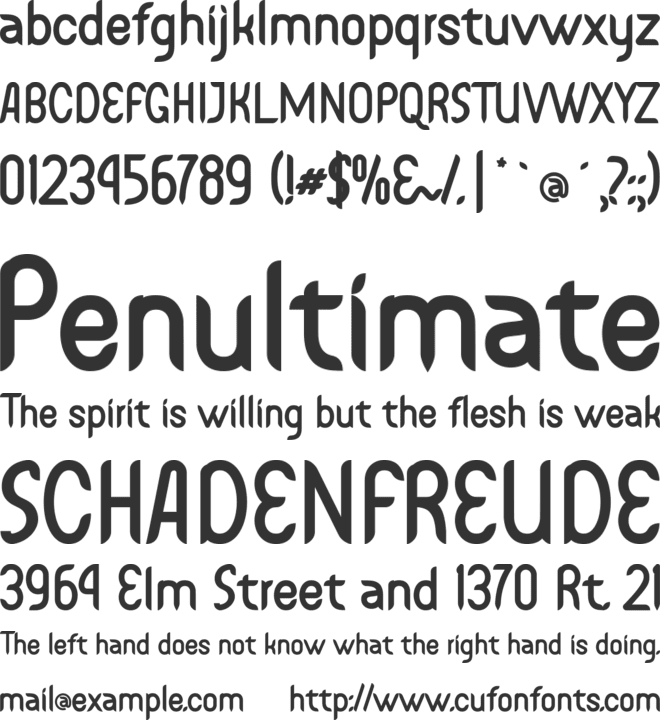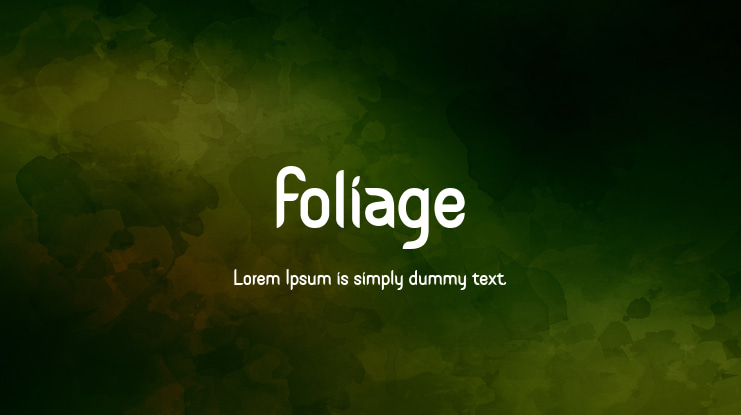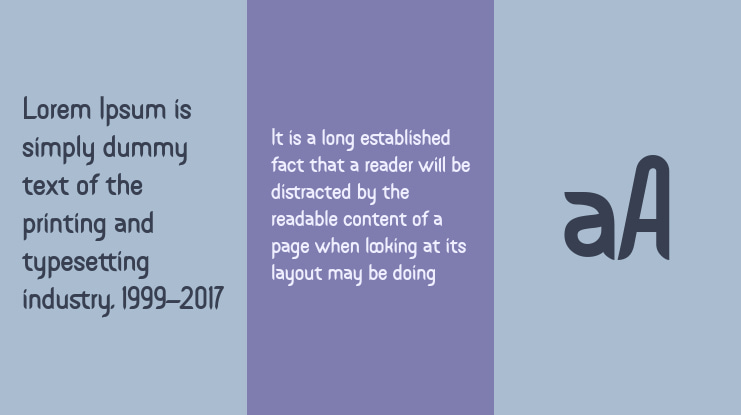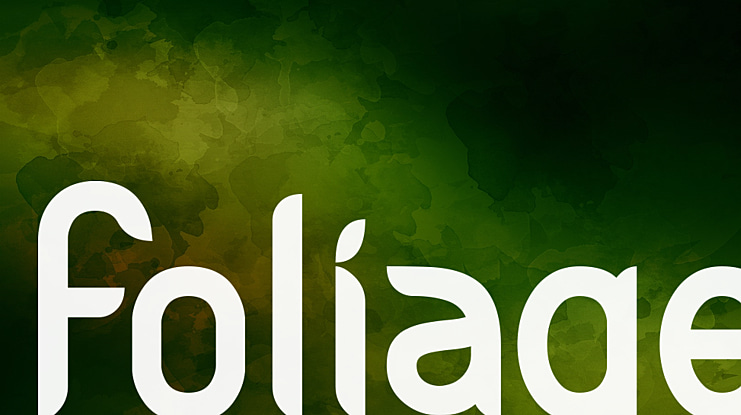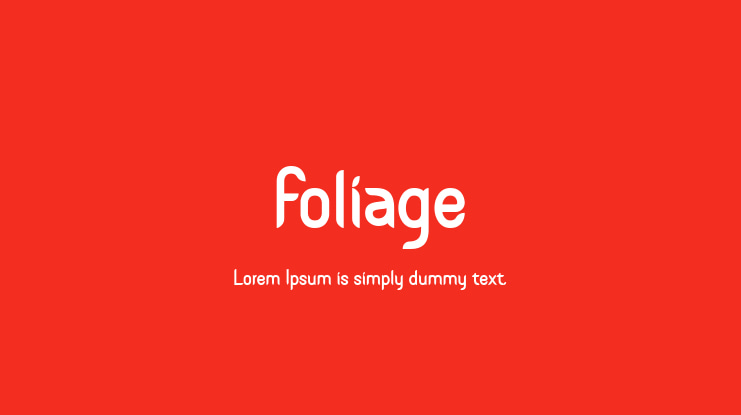
Foliage Font
Foliage is a modern, sharp styled sans serif font. Simple but with a strong visual effect, this font will instantly make your creation more attractive than others.